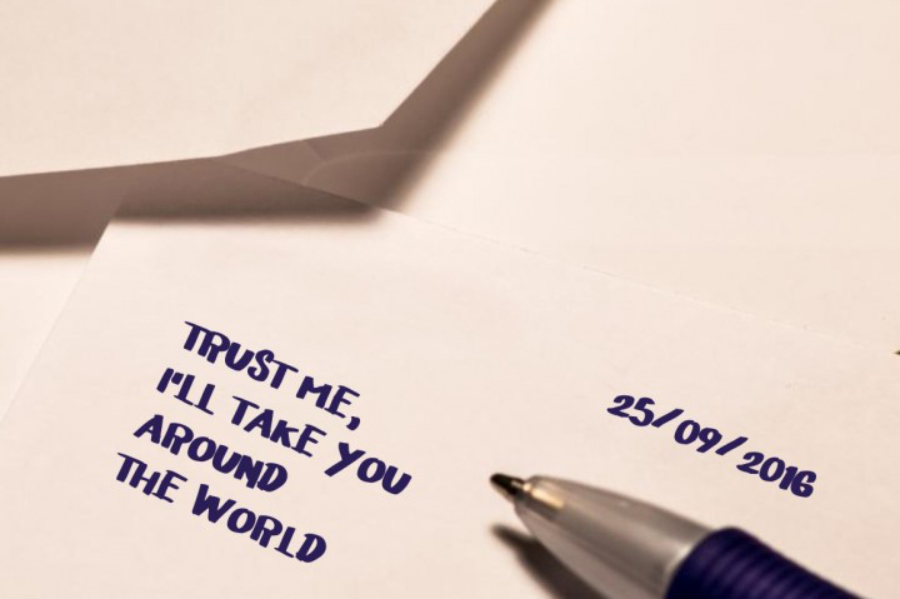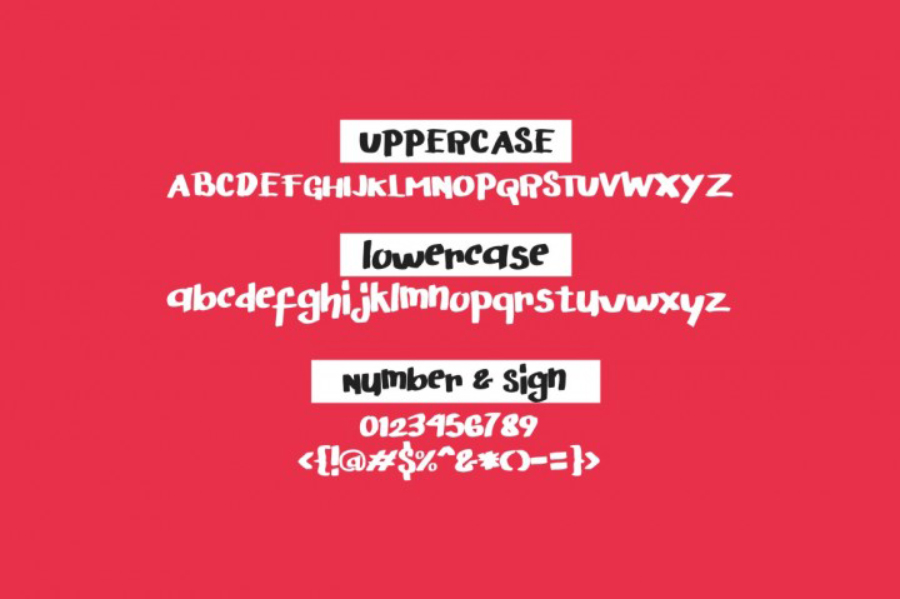
Arigato Handwritten Font
Introducing Arigato Handwritten Font. Foxy designed and shared by Debut Studio. This font is my own handwriting when i write the text in envelope, i think this handwriting good for convert to font in my computer, i really excited if you use that too.